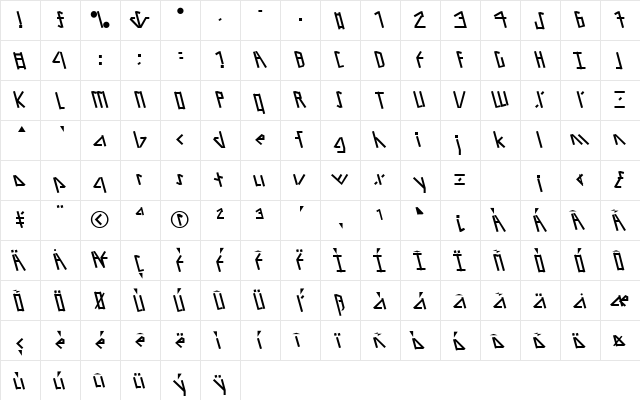
Alien-Tongue Normal
Design Context for Alien-Tongue Typeface
Alien-Tongue is a composed and adaptable typeface that performs quietly and consistently across a wide range of design contexts.